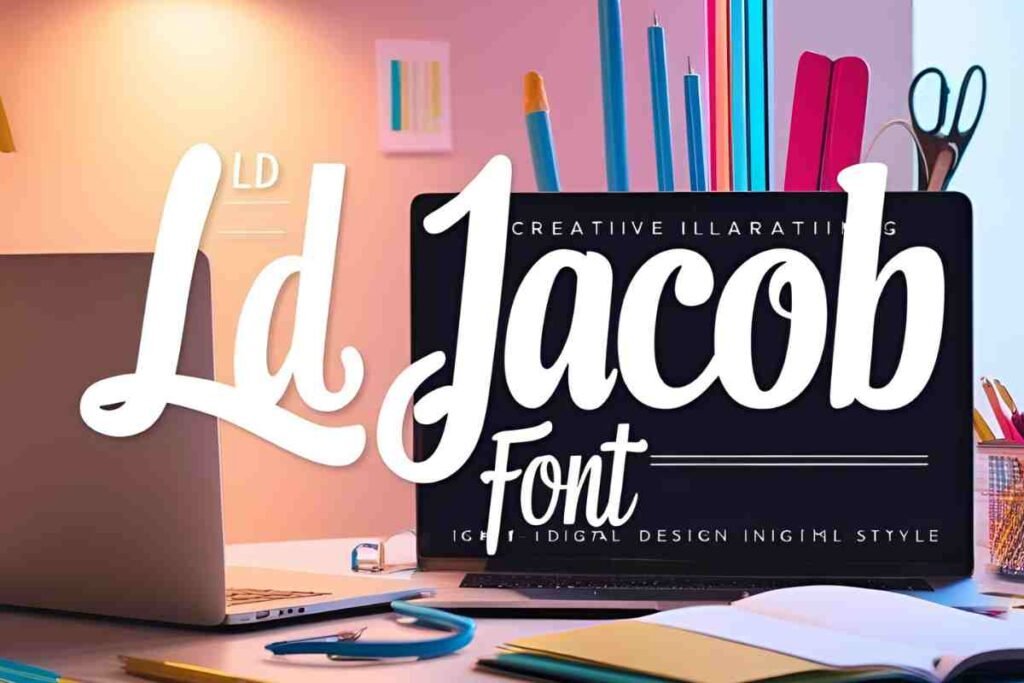
What is LD Jacob Font?
The LD Jacob font is a modern, stylish script typeface known for its elegant and fluid handwritten strokes. With a natural flow and creative flair, this font adds a personal touch to any design project.
Whether you’re working on branding, wedding invitations, logos, greeting cards, social media graphics, or personalized stationery, LD Jacob brings a unique charm that elevates your visuals.
Crafted to resemble authentic calligraphy LD Jacob font free download blends sophistication with readability. Its graceful curves and artistic lines make it one of the most popular free script fonts for download among designers and creatives.
Best Uses for the LD Jacob Font
The LD Jacob font is ideal for a wide range of creative applications. Its handwritten, stylish look makes it perfect for logo design and branding, helping brands stand out with a personal touch. It’s also a popular choice for invitations, including weddings, events, and professional gatherings.
In web design, it adds a modern and elegant flair, while in graphic design, it works beautifully on posters, flyers, and social media visuals. Its versatility makes it a valuable asset in any designer’s toolkit.
Why LD Jacob Font is Popular Among Designers
Designers love the LD Jacob font for its modern aesthetic, clean lines, and stylish handwritten appeal. One of the biggest reasons for its popularity is its flexibility—it looks great in both large headlines and smaller text elements.
The LD Jacob font free download is a valuable asset for any designer looking to enhance their creative projects with a modern, handwritten script typeface. Whether you’re designing a website, creating a logo, or crafting an invitation, the LD Jacob font offers both elegance and style.